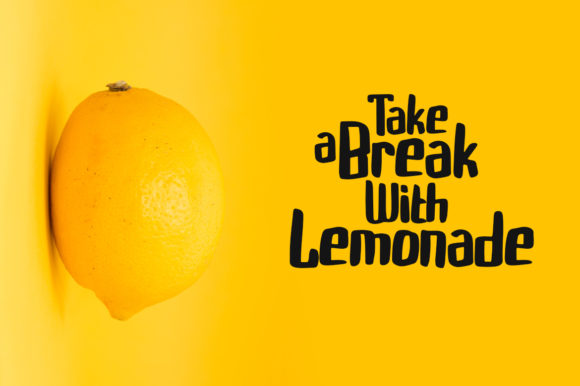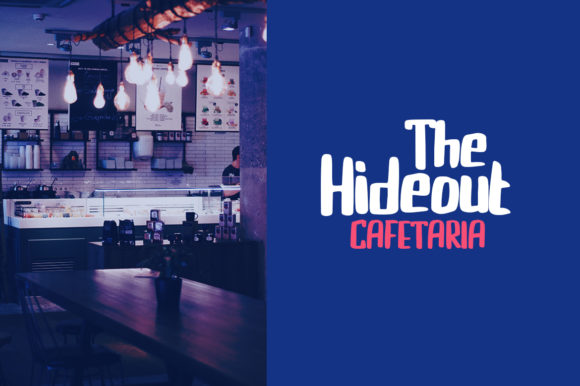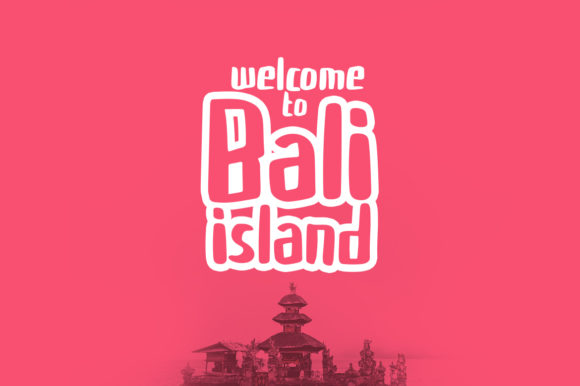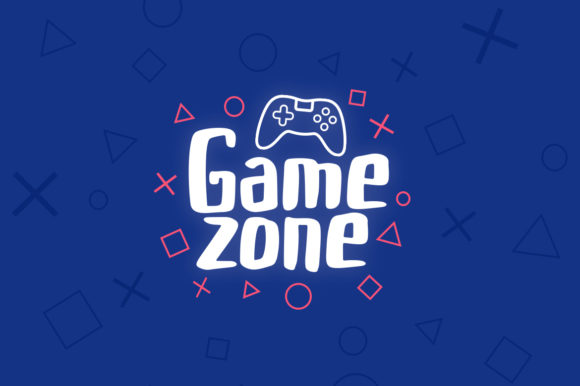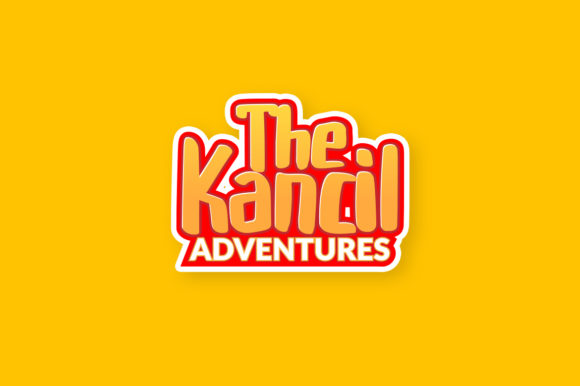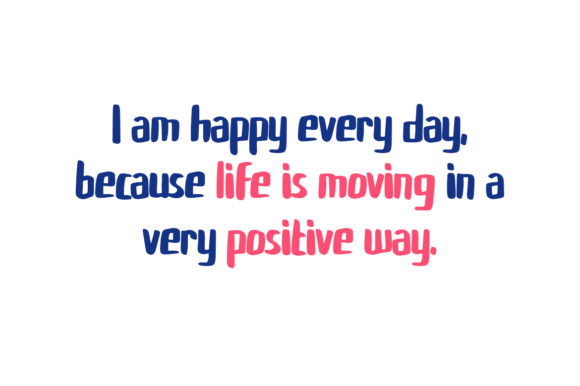
Buggiel Font: Adding a Touch of Whimsy to Your Crafts
Are you a designer or crafter looking for a font that can add a warm and childlike feel to your projects? Look no further than Buggiel Font! This fun and friendly display font is sure to bring a unique charm to any craft, making it perfect for a wide range of creative endeavors.
What is Buggiel Font?
Buggiel Font is a display font designed to evoke a sense of playfulness and friendliness. Its unique charm lies in its quirky and irregular shapes, which give it a distinctly handmade feel. This font is perfect for adding a personal touch to your crafts, whether you’re working on a DIY project, creating handmade cards, or designing custom invitations.
Characteristics of Buggiel Font
So, what makes Buggiel Font so special? Here are a few of its key characteristics:
- Fun and playful: Buggiel Font is designed to be fun and engaging, making it perfect for projects that require a lighthearted touch.
- Unique charm: The font’s quirky shapes and irregularities give it a distinctive character that’s hard to find in other fonts.
- Childlike feel: Buggiel Font has a youthful, innocent quality that makes it perfect for projects aimed at children or that require a playful touch.
- Handmade feel: The font’s irregularities and quirks give it a distinctly handmade feel, making it perfect for crafty projects.
Uses for Buggiel Font
Buggiel Font is a versatile font that can be used in a wide range of creative projects, including:
- Handmade crafts: Buggiel Font is perfect for adding a personal touch to handmade crafts, such as knitted items, jewelry, or other DIY projects.
- Card making: The font’s playful, childlike quality makes it perfect for creating handmade cards for special occasions.
- Invitation design: Buggiel Font can add a touch of whimsy to custom invitations, making them stand out from the crowd.
- Graphic design: The font’s unique charm makes it a great choice for graphic design projects, such as posters, flyers, or brochures.
Tips for Using Buggiel Font
Here are a few tips for getting the most out of Buggiel Font:
- Use it sparingly: Buggiel Font is a display font, so it’s best used sparingly to add emphasis or create visual interest.
- Pair it with other fonts: Buggiel Font pairs well with clean, simple fonts that can provide a nice contrast to its playful, irregular shapes.
- Experiment with colors: The font’s childlike quality makes it perfect for bright, bold colors that can add to its playful feel.
Buggiel Font is a fun and friendly display font that’s perfect for adding a warm and childlike feel to any craft. Its unique charm, quirky shapes, and handmade feel make it a great choice for a wide range of creative projects, from handmade crafts to graphic design. So why not give Buggiel Font a try and see how it can add a touch of whimsy to your next project?